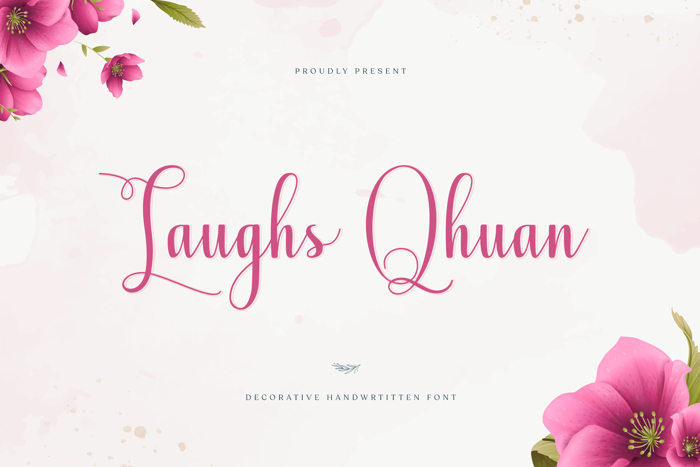
Laughs Qhuan Font
Laughs Qhuan is a delicate and elegant handwritten font. Its distinct and well rounded letters make this font a masterpiece. This font is PUA encoded which means you can access all of the glyphs and swashes with ease! Fall in love with its incredibly versatile style and use it to create spectacular designs!